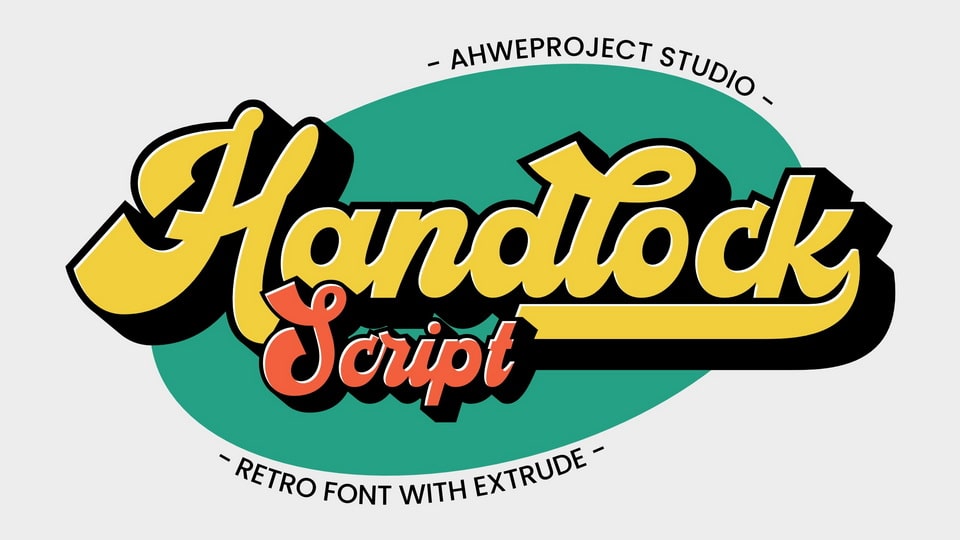
Download Handlock font, a bold and retro styled handwritten typeface. This font reads as strong, confident, and dynamic and can add tons of nostalgic character to your designs.